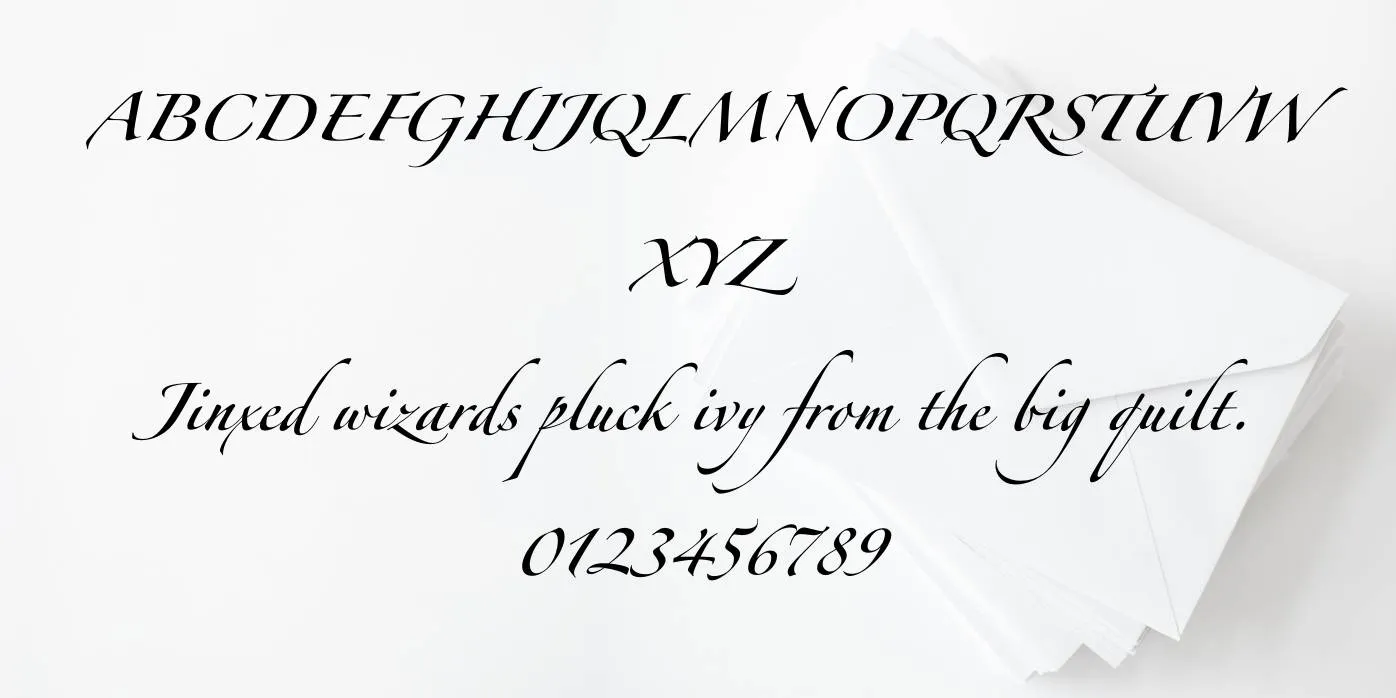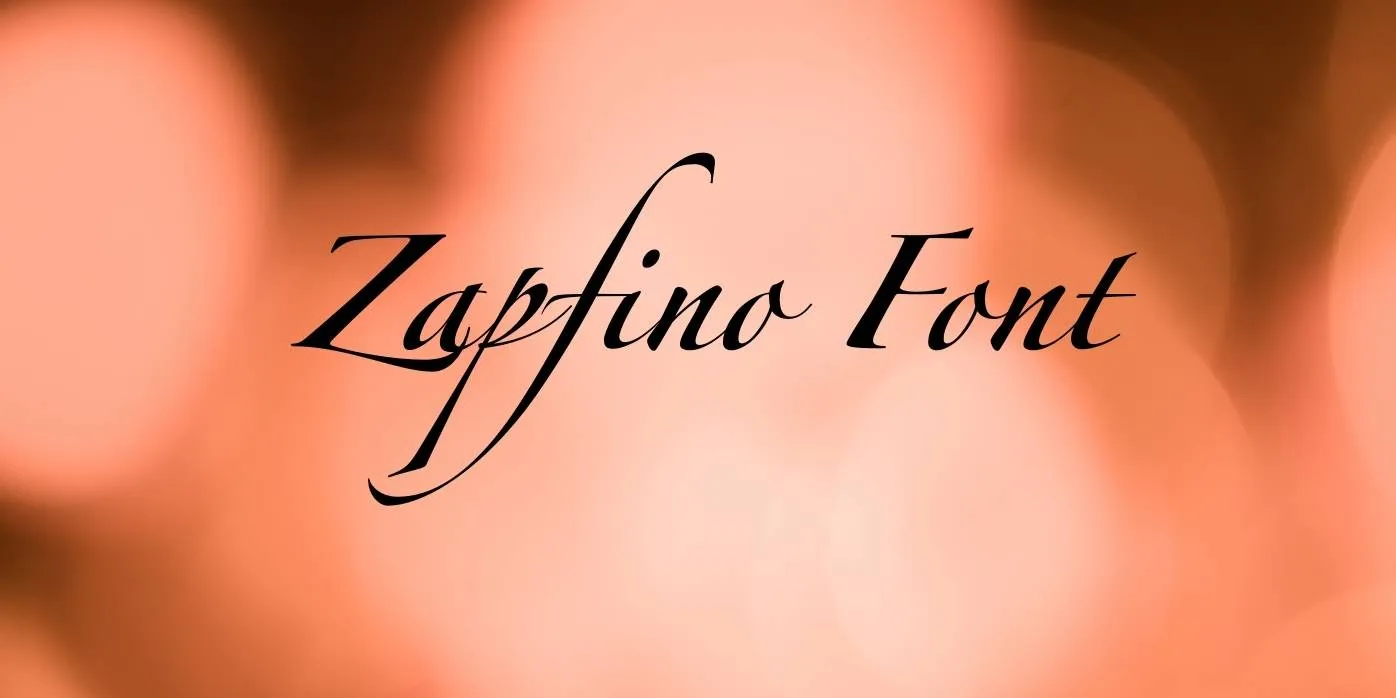
Zapfino Font
Today, we are consulting on a stylish typeface that is known as Zapfino Font. This font family was designed by a well-experienced designer named Hermann Zapf in the year 1998. Designed of this modern typeface was developed on Alphabet Zapf. This stunning font family belonged to Script typeface.
This font family comes in various types of unique styles and different weights. Its designer works hard on this typeface for a long time and again in 2003 designer made some changes in this font and it was extraordinary. Bold, light, and other more are its famous characters. All of its unique characters work best when you can use this font with the pairing of Mustardo Script font.
Zapfino Extra, Zapfino Extra W1G are some famous common styles of this typeface. All of its unique styles make it more famous and powerful. Its features are too advanced and clean increasing its popularity and uniqueness. Mostly, Designer used this font in their various projects and plane.